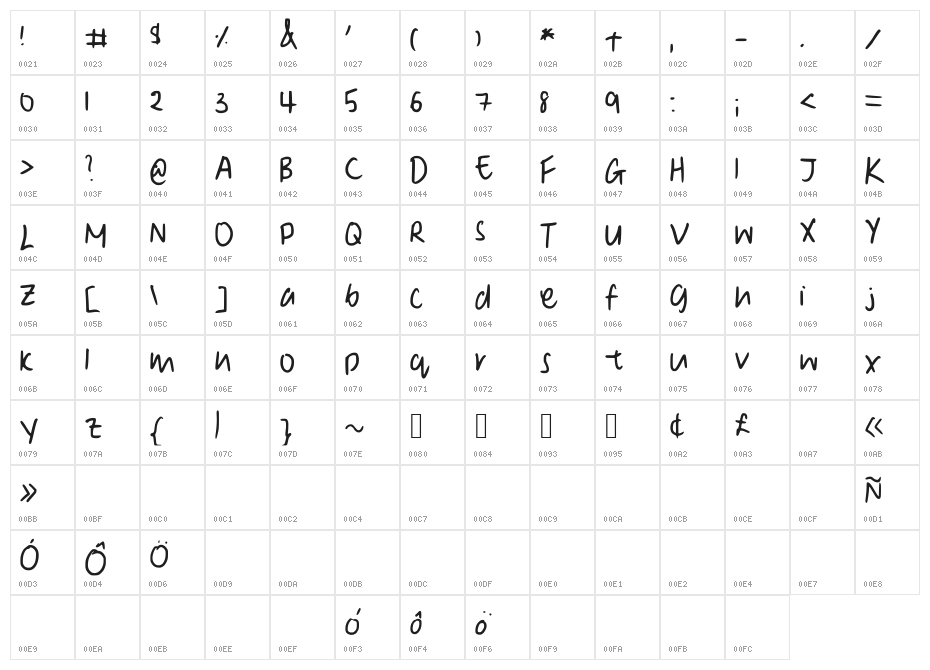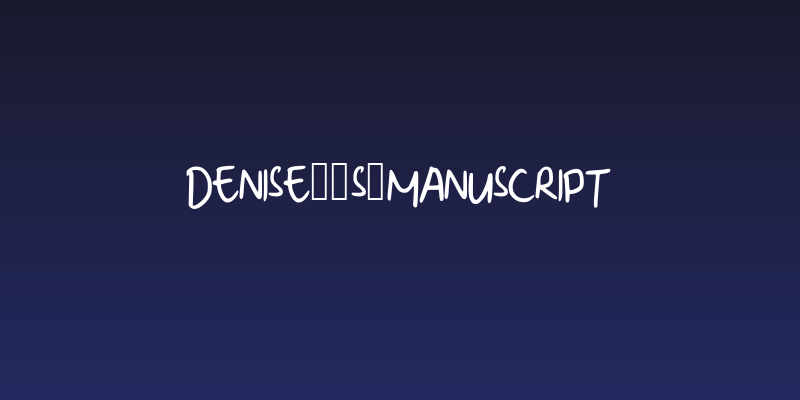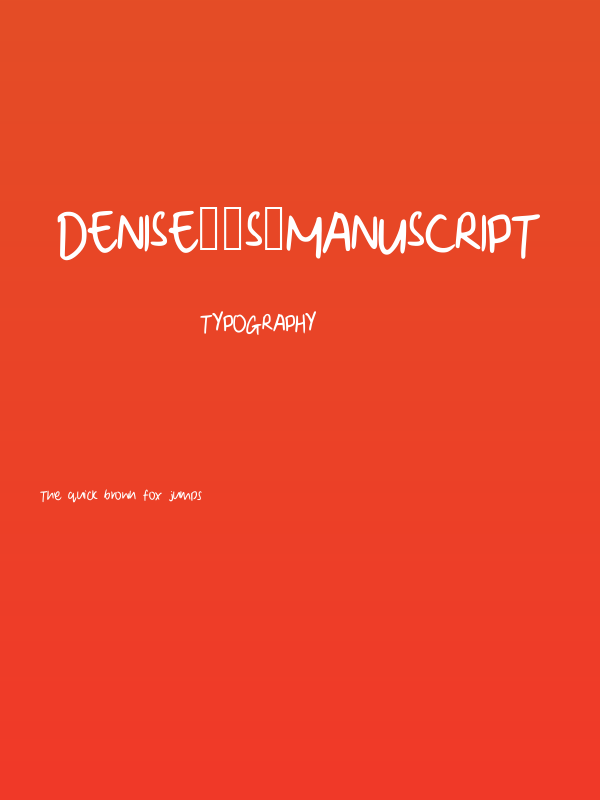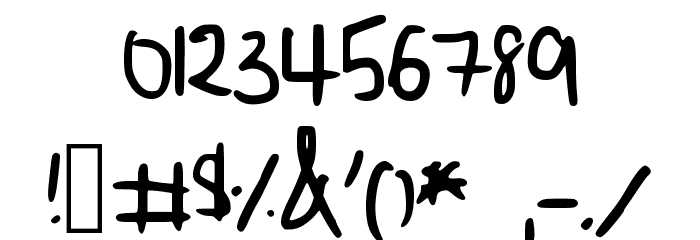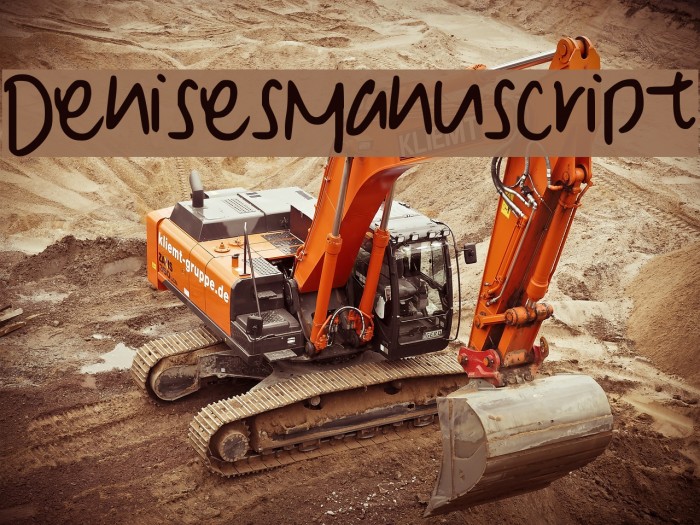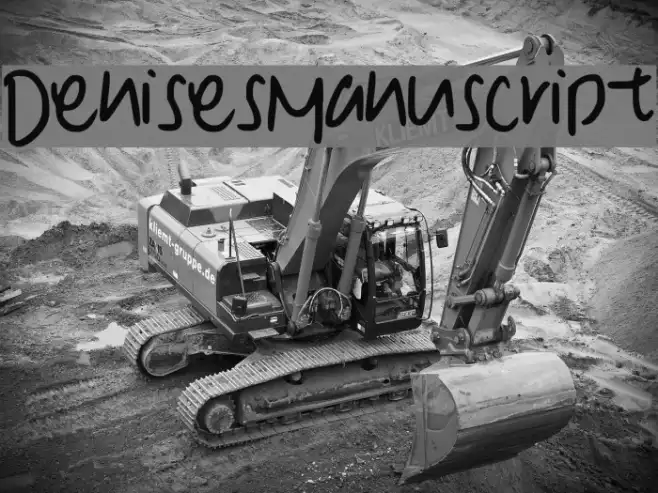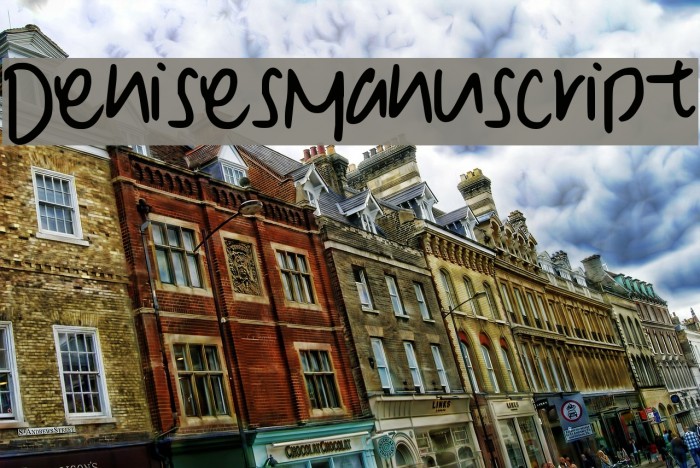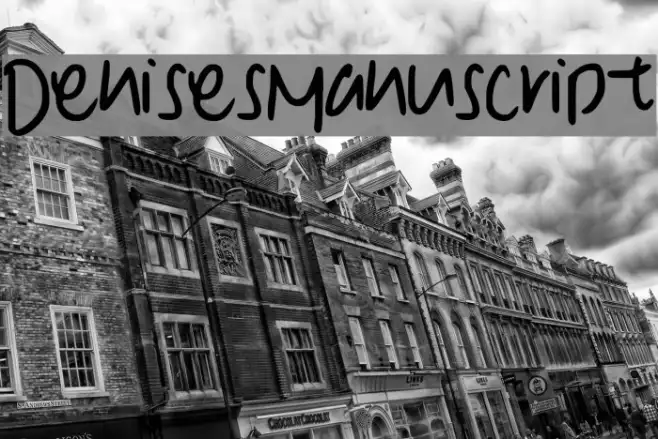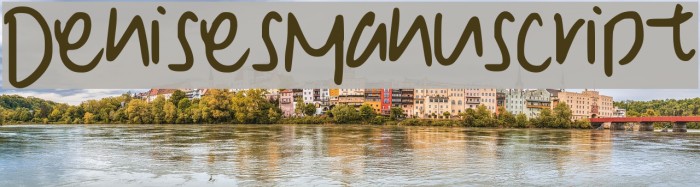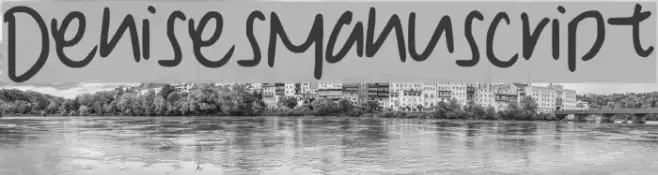
Denise__s_Manuscript Font
Denise__s_Manuscript Description
This font features a playful and casual handwritten style, characterized by its smooth, flowing lines and slightly irregular shapes. The uppercase and lowercase letters maintain a consistent height, giving it a uniform appearance while retaining a personal touch. The numbers and special characters are crafted with the same informal flair, making them blend seamlessly with the alphabet. The overall look is approachable and friendly, suitable for projects that require a personal or informal tone. The strokes are consistent in width, providing a balanced and harmonious look across all characters.
| Proposed Projects | Ideal for personal notes, invitations, greeting cards, and informal branding projects. |